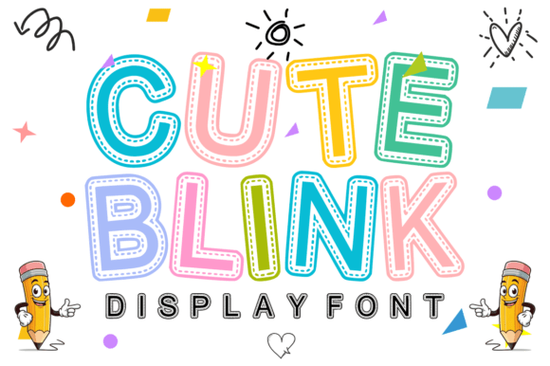
If you’re looking for a friendly, handmade-style display font that works well for kids’ projects, classroom materials, or playful merchandise, Cute Blink Font is a solid choice. It’s not overly complex just bold, rounded letters with a subtle dashed-line stitch effect inside each character, giving it that soft, embroidered patch feel. You don’t need design experience to make it work: it reads clearly at larger sizes and adds instant charm without competing with your layout.
What makes Cute Blink different from other decorative fonts?
Most playful fonts rely on bounce, swirls, or exaggerated curves. Cute Blink stands out because of its internal stitching detail it’s like each letter was carefully stitched onto fabric. That gives it a tactile, crafty quality you’ll notice right away, especially when printed or cut for vinyl or iron-on transfers. Unlike script fonts that can be hard to read at small sizes, Cute Blink stays legible even in medium-large display use (think 36pt+). And because the outlines are smooth and the corners gently rounded, it avoids looking jagged or dated even on low-res screens or basic printers.
It’s also designed with real-world workflows in mind. The font includes standard OpenType features like ligatures and stylistic alternates, but you won’t need them to get great results. Most users simply type, size up, and go. If you’ve used fonts like Ash Font or Checkered Varsity Font, you’ll recognize the same thoughtful spacing and consistent weight distribution here just with a softer, more inclusive vibe.
Where does Cute Blink work best?
This font shines where warmth and approachability matter most. Think beyond just “cute” it’s intentionally gentle, non-gendered, and age-flexible. You’ll see it used well in settings like:
- Classroom resources: Worksheets, behavior charts, and bulletin board headers especially in early elementary or special education settings where visual clarity + emotional tone both count.
- Kids’ apparel: T-shirts, tote bags, and bibs made via sublimation or heat transfer. Its thick strokes hold up well during cutting and weeding.
- Party printables: Birthday banners, cupcake toppers, and invitation headers particularly for themes like woodland animals, rainbows, or “first day of school.”
- Crafting projects: Works smoothly in Cricut Design Space and Silhouette Studio, especially with the “Print Then Cut” or “Cut Image” options. No extra outlining needed.
- Nursery and scrapbooking: Labels, growth charts, and photo album titles where you want texture without clutter.
How does it compare to similar fonts in the Creative Fabrica library?
Cute Blink sits comfortably between Ash Font (which has more structured elegance) and Checkered Varsity Font (which leans sporty and bold). It’s less formal than Ash, less graphic-heavy than Checkered Varsity and more consistently “handmade-feeling” than either. If you already own Cute Blink Font, you’ll likely reach for it first when designing for preschoolers, homeschool co-ops, or small-batch baby brands.
One practical note: it’s a display font, not a body text font. So avoid using it for paragraphs, long lists, or fine print. But for headlines, labels, and short phrases? It adds personality without sacrificing function.
- Look at the full character set: Includes uppercase, lowercase, numbers, and basic punctuation but no extended language support (e.g., accented characters).
If you’re building a cohesive brand kit for a children’s product line or just need one reliable, cheerful font for seasonal classroom updates Cute Blink fits naturally into your toolkit. It doesn’t try to do everything. It does one thing well: bring quiet, handmade joy to everyday words.